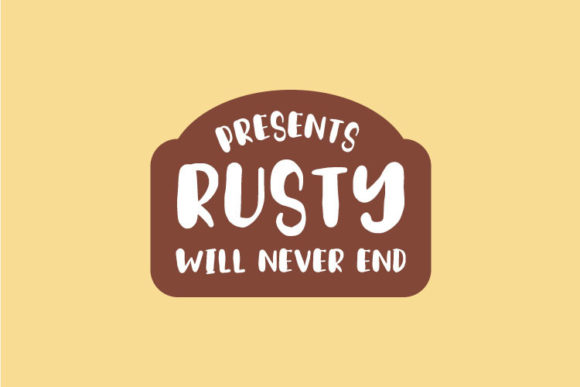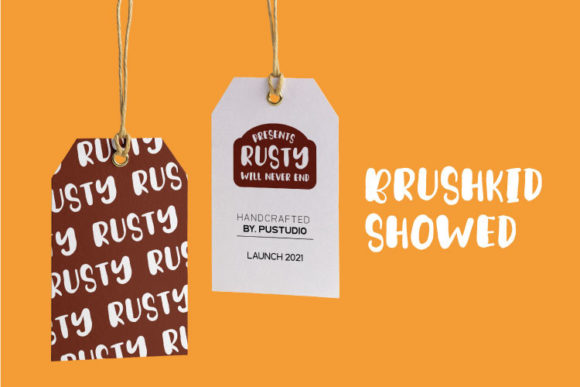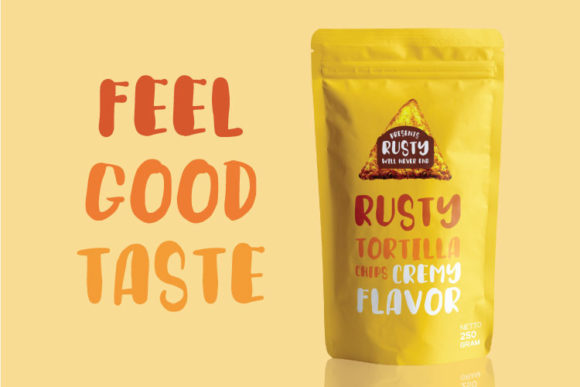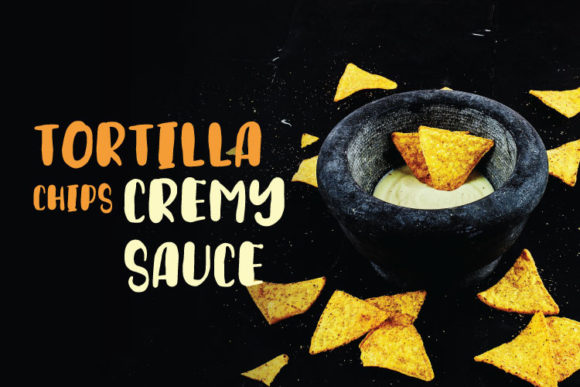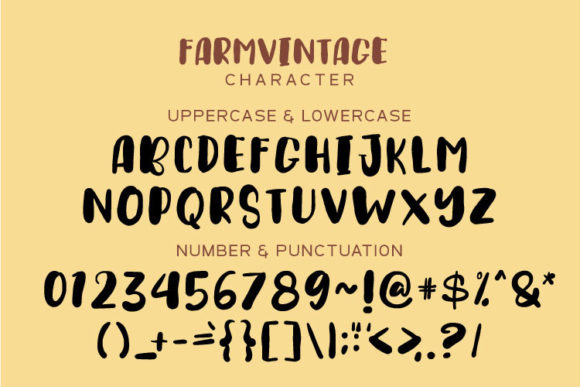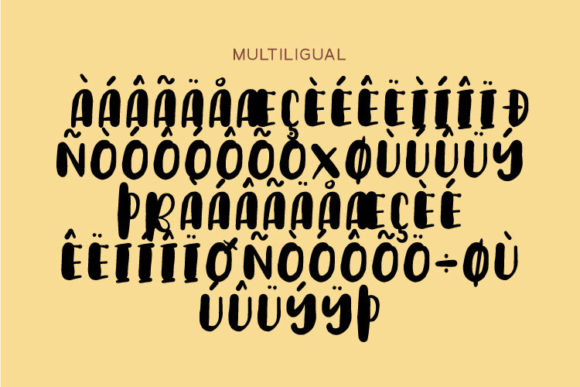
Introducing BrushKid Font: The Perfect Choice for Fun and Creative Projects
Are you looking for a font that embodies playfulness and authenticity? Look no further than BrushKid Font! This adorable display font is perfect for any children activity or school project that requires a touch of fun and whimsy. In this article, we’ll dive into the world of BrushKid Font and explore its features, uses, and benefits for designers and crafters.
What is BrushKid Font?
BrushKid Font is a cute and friendly display font designed to bring a smile to your face. Its playful and authentic style makes it an excellent choice for projects that require a personal touch. Whether you’re working on a children’s book, a school poster, or a craft project, BrushKid Font is sure to add a dash of fun and personality to your design.
Features of BrushKid Font
So, what makes BrushKid Font so special? Here are some of its key features:
- Playful and Authentic Style: BrushKid Font has a unique, hand-drawn feel that’s perfect for creating fun and engaging designs.
- Cute and Friendly: The font’s adorable characters are sure to delight children and adults alike.
- Display Font: BrushKid Font is designed to make a statement, making it perfect for headings, titles, and other display text.
- Easy to Read: Despite its playful style, BrushKid Font is easy to read, even at smaller sizes.
Uses of BrushKid Font
BrushKid Font is incredibly versatile, making it suitable for a wide range of projects, including:
- Children’s Books and Activities: Add a touch of fun and whimsy to your children’s book or activity sheets with BrushKid Font.
- School Projects: Make your school posters, presentations, and reports stand out with this playful font.
- Craft Projects: Use BrushKid Font to add a personal touch to your craft projects, such as handmade cards, gift tags, and scrapbook pages.
- Digital Designs: BrushKid Font is perfect for digital designs, including social media graphics, blog posts, and website headers.
So, why should designers and crafters choose BrushKid Font? Here are some benefits:
- Time-Saving: With BrushKid Font, you can create professional-looking designs in no time, saving you hours of work.
- Customizable: Experiment with different colors, sizes, and styles to make BrushKid Font your own.
- Fun and Engaging: Add a touch of personality to your designs and make them more engaging with BrushKid Font.
Tips and Tricks for Using BrushKid Font
Here are some tips and tricks for getting the most out of BrushKid Font:
- Pair with Other Fonts: Combine BrushKid Font with other fonts for a unique and interesting look.
- Experiment with Colors: Try out different colors and gradients to add depth and interest to your design.
- Use it for Headings: BrushKid Font is perfect for headings and titles, making it a great choice for creating visual hierarchy.
In conclusion, BrushKid Font is a fantastic choice for designers and crafters looking to add a touch of fun and personality to their projects. With its playful and authentic style, this cute and friendly display font is perfect for children’s activities, school projects, craft projects, and digital designs. So why not give BrushKid Font a try and see how it can bring your designs to life?